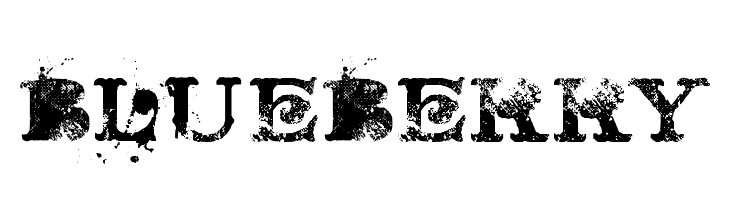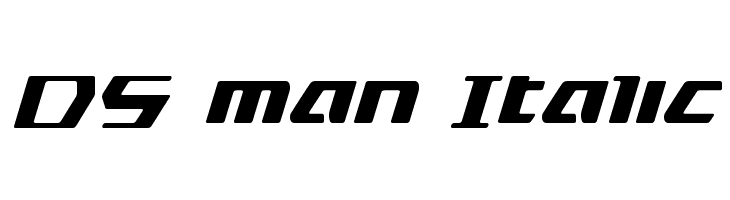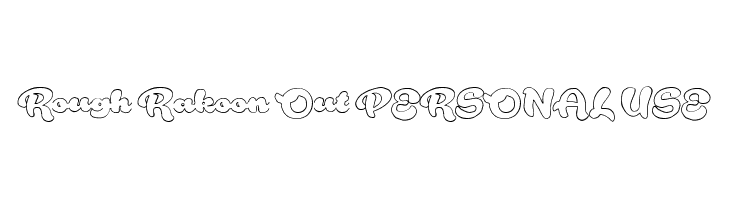
A bold, geometric font with a futuristic and industrial style.
A playful, bold font with rounded, bubbly characters ideal for fun and whimsical designs.
A thin, handwritten font with a casual and playful style.
A festive, cursive script font with elegant, flowing strokes.
A playful, whimsical font with tall uppercase and bold, rounded lowercase letters.
A playful, handwritten-style font with a whimsical and casual appearance.
An elegant script font with flowing, interconnected letters and ornate swashes.
A bold, geometric font with a digital, pixelated style.
A bold, distressed font with a rugged, vintage appearance.
设计师偏爱 Funny Samurai, Bublo Bold, blackjacketboys-Thin, Christmas Scriptty Demo and Xtrase Regular,因为其造型干净、适用范围广—— 从品牌识别到落地页、海报都能胜任。